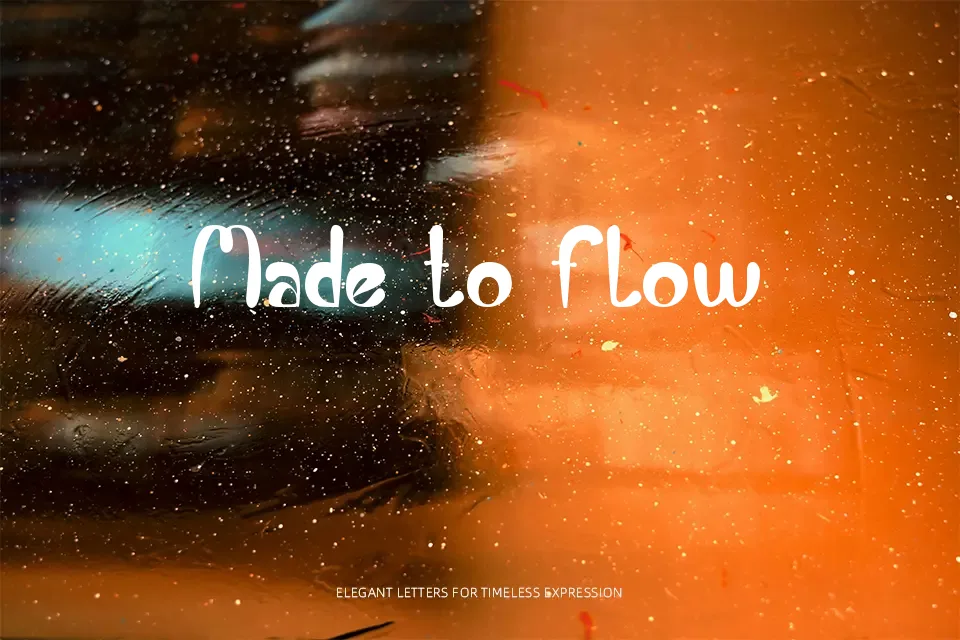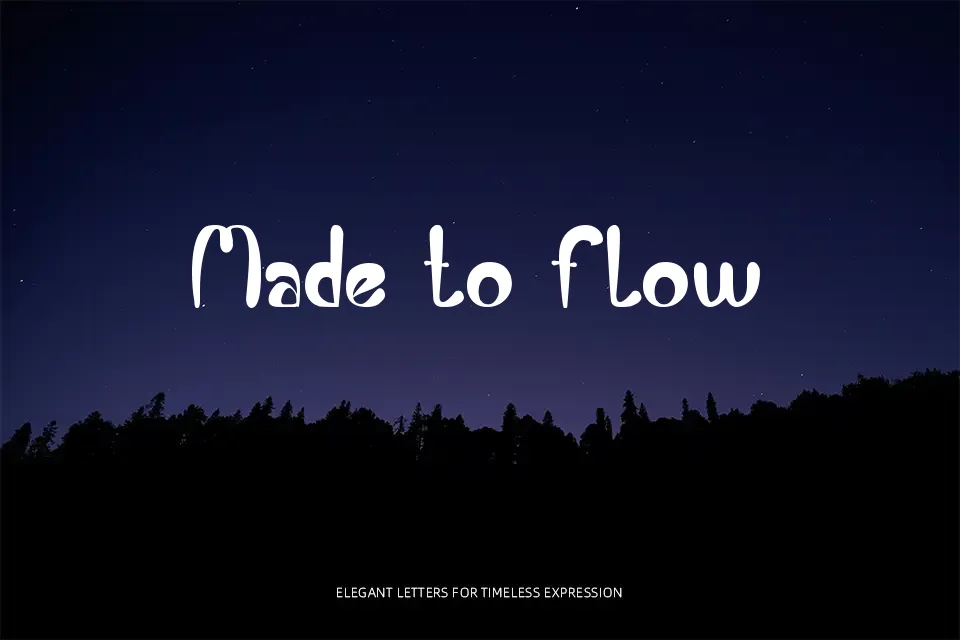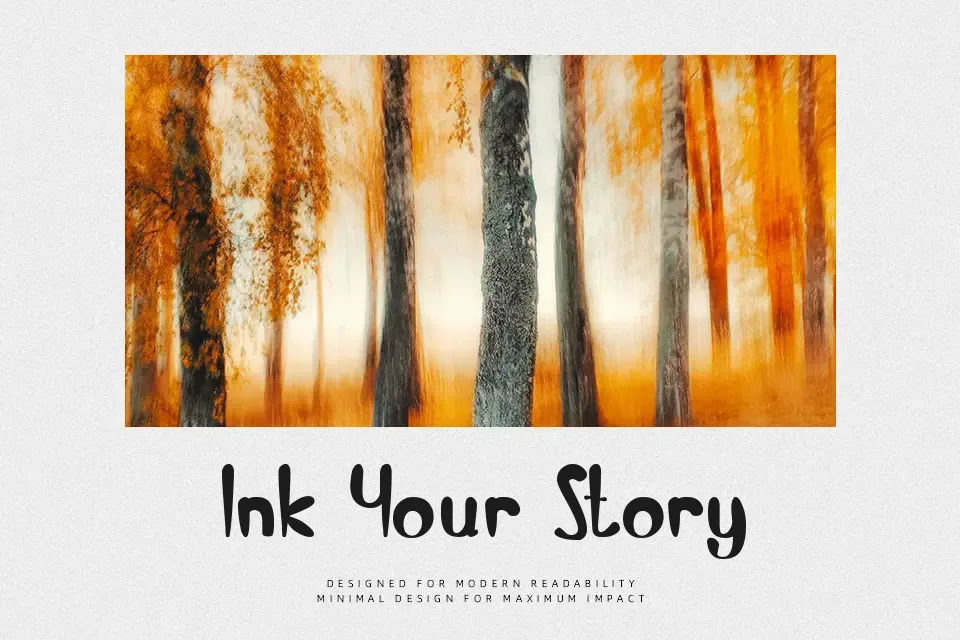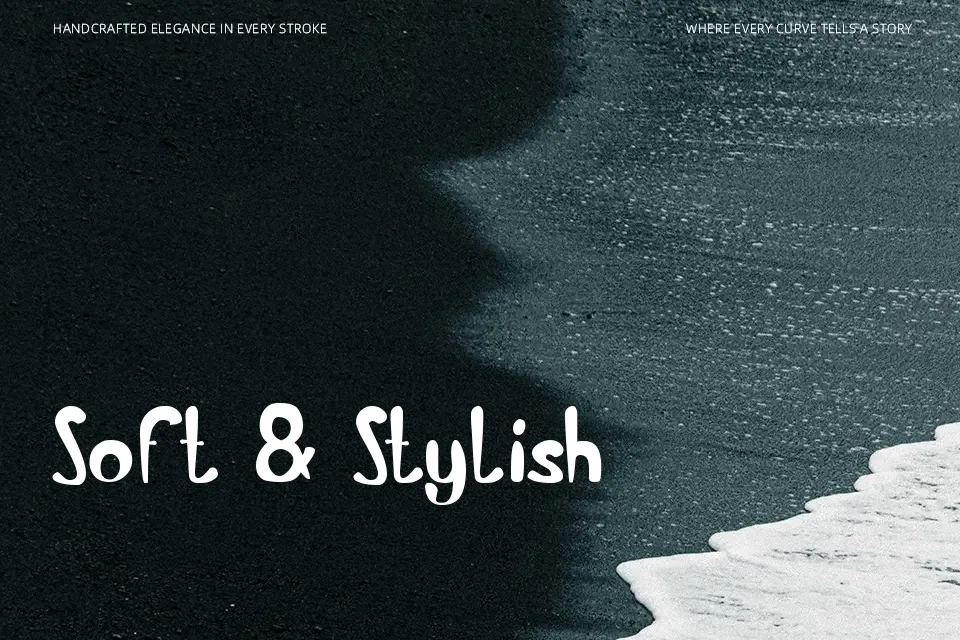
Banana Split Font
Rounded strokes and irregular baseline give Banana Split an approachable, hand-lettered quality that feels spontaneous rather than rigid. The letterforms feature soft curves and a slightly whimsical structure, creating a friendly, energetic tone suitable for creative work that prioritizes character over formality. It includes alternates, ligatures, and multi-language support, making it adaptable for branding compositions, invitation designs, and product labels where visual charm matters. The font works well at larger sizes where its decorative details remain visible—headlines, poster titles, or social media graphics benefit from its organic flow. However, its irregular rhythm and decorative weight make it unsuitable for paragraph-length reading or contexts requiring professional restraint. It feels too casual for corporate materials and loses legibility when reduced to small point sizes. Banana Split delivers personality in short bursts, but needs pairing with a simpler typeface if your layout includes supporting text or complex information hierarchies.
– Café menus and dessert shop signage
– Birthday party invitations and greeting cards
– Creative packaging for playful consumer products
– Social media graphics with short, catchy headlines
– Long paragraphs or body text
– Corporate reports or formal business documents
– Small point sizes or mobile UI text
– Professional branding requiring restraint
Perfect for branding, headline, and invitation, with a creative and decorative style.